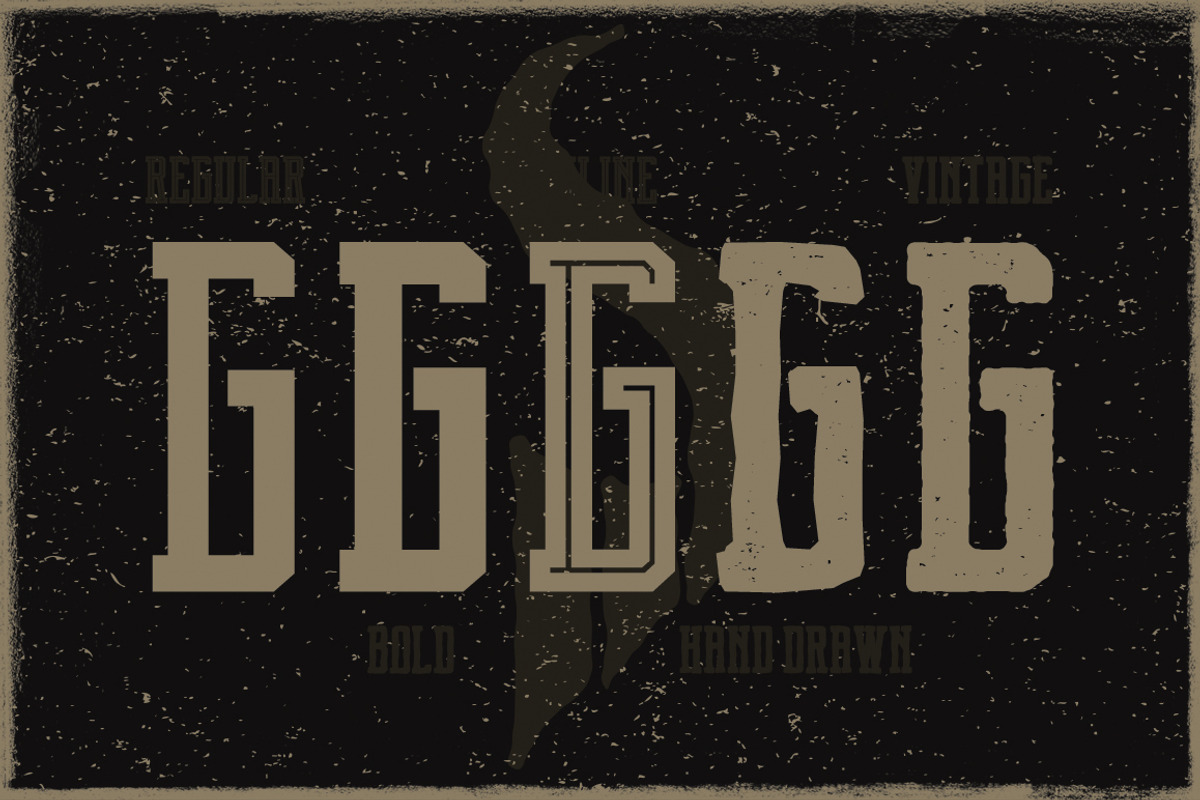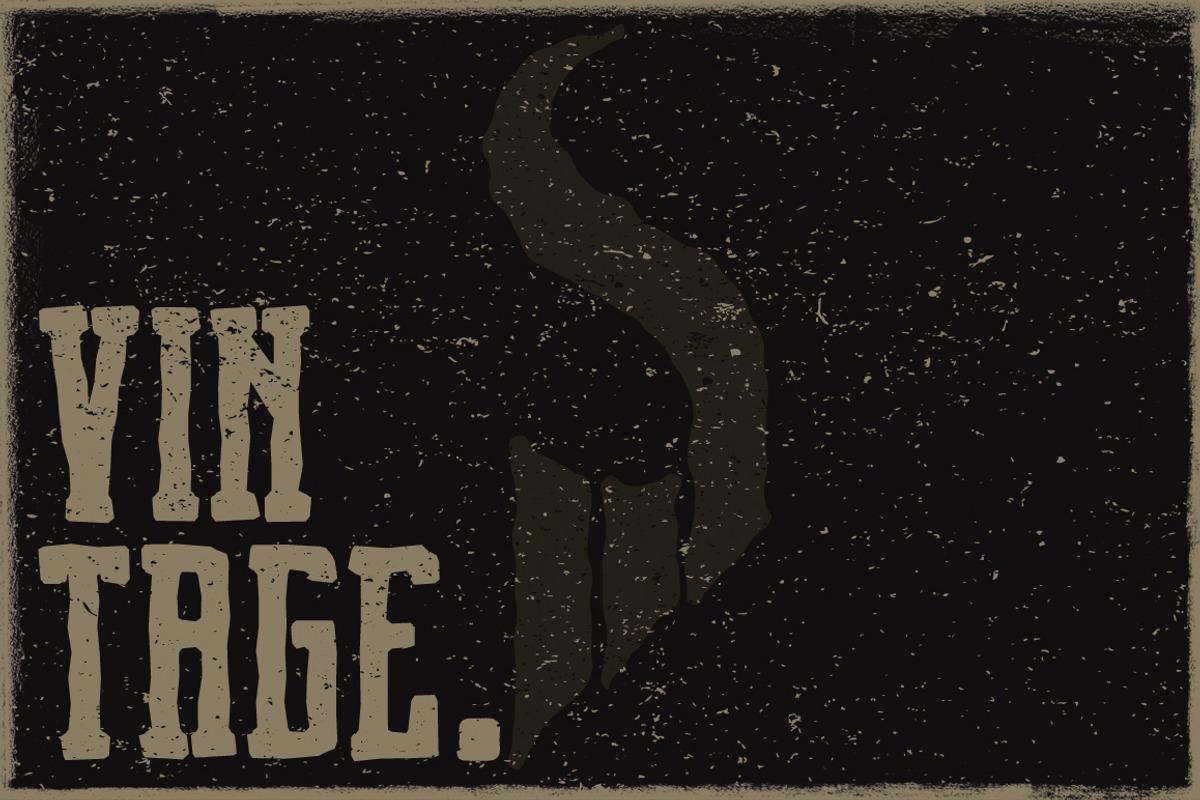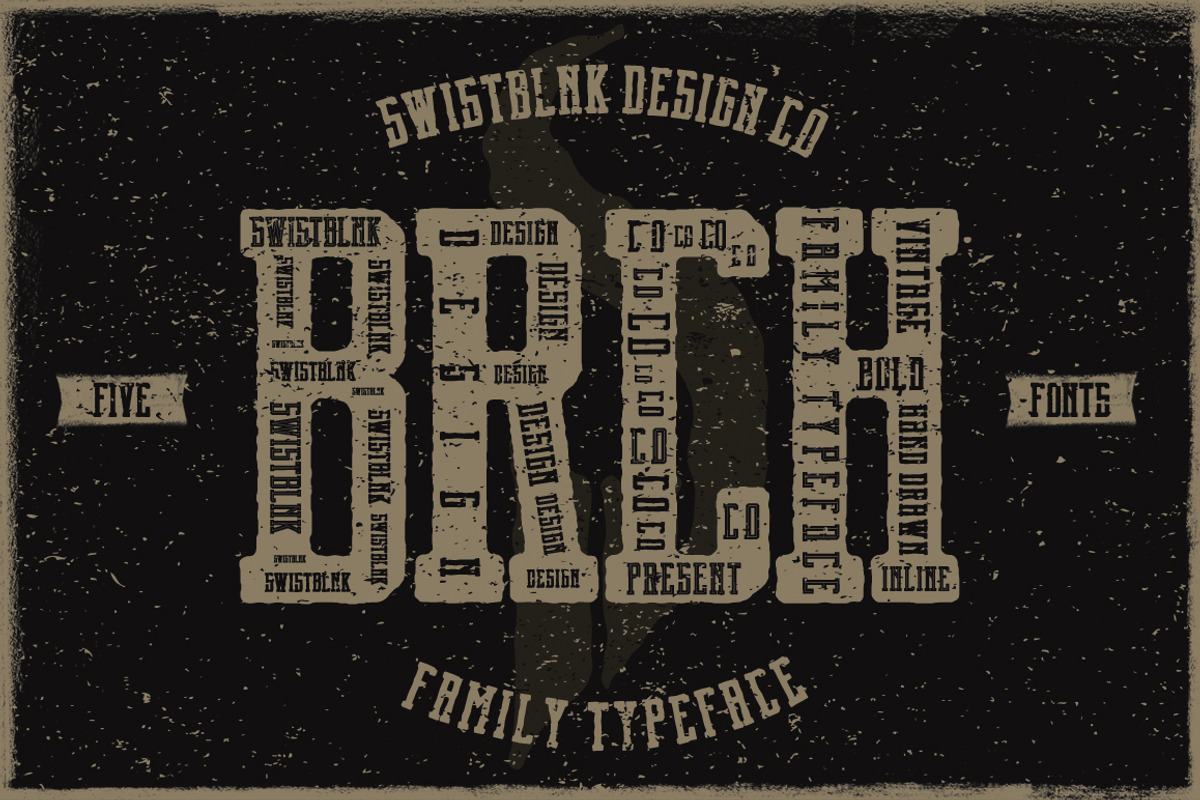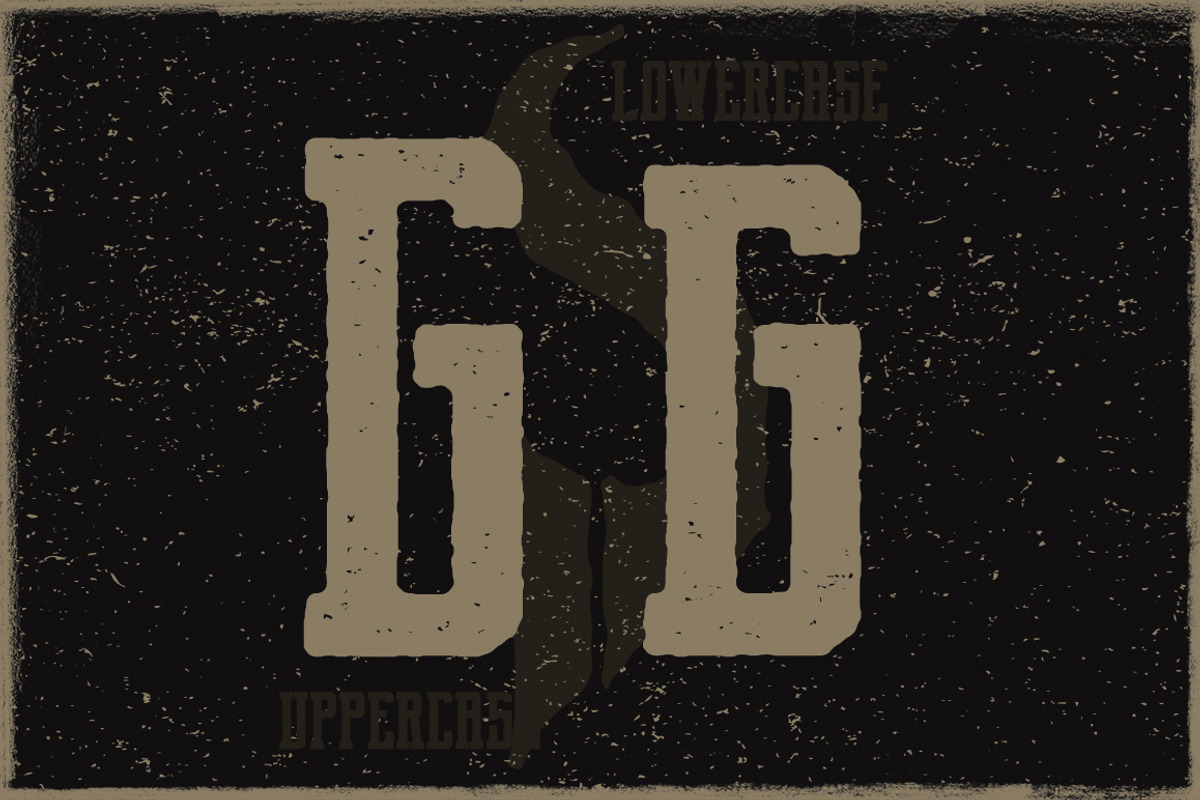
Brch Family Typeface
Brch Family Typeface by Swistblnk Std. is a font selected for branding, posters, packaging, typography.
- Brch Family includes 5 fonts : 1.
- Brch Regular Regular
- Brch Bold Bold
- Brch Inline Inline
- Brch Hand Drawn Hand Drawn
- Brch Vintage Vintage
Brch Family Typeface by Swistblnk Std. fits naturally into Branding, posters, packaging, typography.